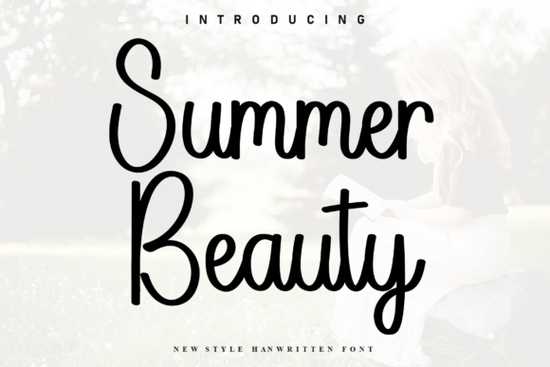
If you're looking for a handwritten font that feels relaxed but still polished like something sketched quickly with a fine-tip marker but refined enough for professional use you’ll like Summer Beauty Font. It’s not overly decorative or fussy, and it doesn’t try too hard to be “cute” or “trendy.” Instead, it balances casual energy with quiet elegance making it especially useful for small businesses, crafters, and designers who need versatility without sacrificing personality.
When does Summer Beauty Font work best?
This font shines where warmth and approachability matter. Think wedding stationery that feels personal but not childish, boutique clothing tags that whisper “handmade,” or summer-themed social media graphics that don’t look like they came from a generic template. Because it’s drawn with a light hand and subtle variation in stroke weight, it reads as friendly and human not robotic or over-processed.
It’s also well-suited for print-on-demand projects: greeting cards, tote bags, mugs, and digital planners all benefit from its relaxed rhythm. You’ll find it fits naturally into lifestyle branding especially for makers selling handmade soaps, organic teas, or slow-fashion apparel where authenticity matters more than perfection.
How does it compare to other popular script fonts?
Unlike tightly spaced, ultra-thin scripts that can feel fragile on screen or at small sizes, Summer Beauty has just enough presence to hold up across formats. It’s bolder than Whipped Honey Family Font, which leans more delicate and romantic, and less playful than Chunky Chaos Font, which embraces intentional imperfection. If you’ve used Mango Bloom Font, you’ll notice Summer Beauty shares some of its breezy flow but with cleaner joins and slightly more consistent spacing, making it easier to pair with sans-serif typefaces for balanced layouts.
It’s also more grounded than Sunny Font, which leans into whimsy and bounce. That makes Summer Beauty a strong choice when you want to suggest luxury without formality say, for a small-batch candle brand or a coastal yoga studio’s seasonal promo.
Pairing tips for real-world use
Because Summer Beauty has moderate contrast and open letterforms, it pairs well with clean, neutral typefaces. Try it with:
- A light or regular-weight sans-serif (like Inter, Lato, or Montserrat) for business cards or product labels
- A soft serif (such as Playfair Display or Cormorant Garamond) for wedding invites or editorial layouts
- Minimalist geometric fonts for contrast just avoid anything too tight or condensed, which can compete visually
Avoid pairing it with other highly textured or heavily swashed scripts unless you’re going for deliberate layering (e.g., a headline + subhead combo where one is clearly dominant). When in doubt, test at actual size on screen and printed before finalizing.
Who’s using it right now?
We’ve seen small creative businesses use Summer Beauty Font for everything from Instagram story templates to custom vinyl decals for local cafes. Print-on-demand sellers report solid performance on summer-themed designs especially those tagged with keywords like handwritten summer font, casual script font, or elegant yet relaxed font. Crafters appreciate how easy it is to cut cleanly with Cricut and Silhouette machines, thanks to its smooth outlines and minimal thin strokes.
One designer told us she used it for a series of “Sunset Market” tote bags sold at a local artisan fair and customers specifically mentioned how “friendly but put-together” the lettering felt. That’s the sweet spot this font hits.